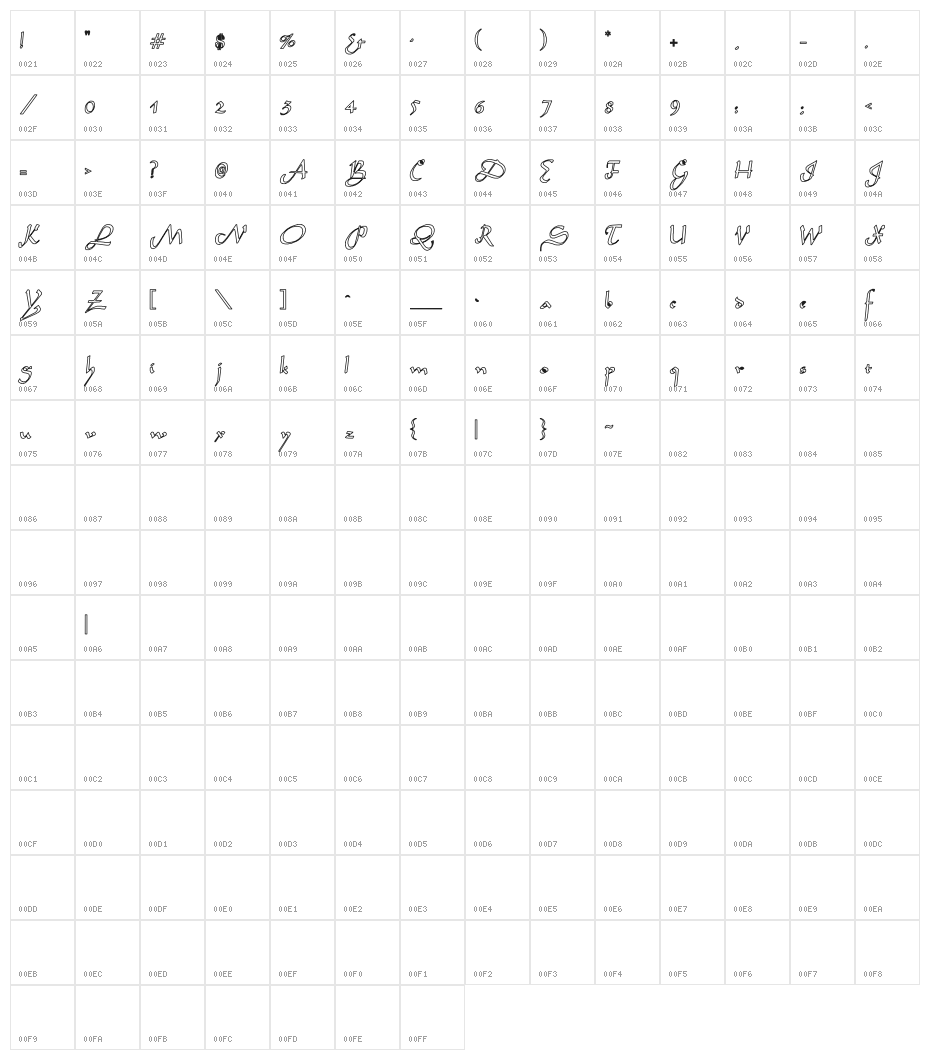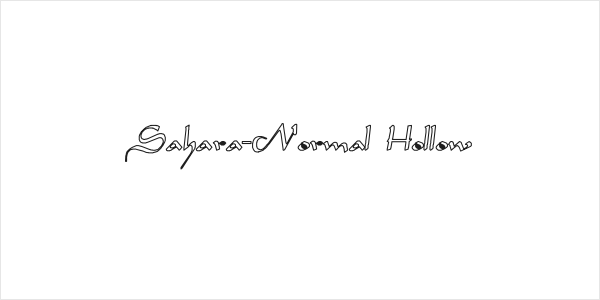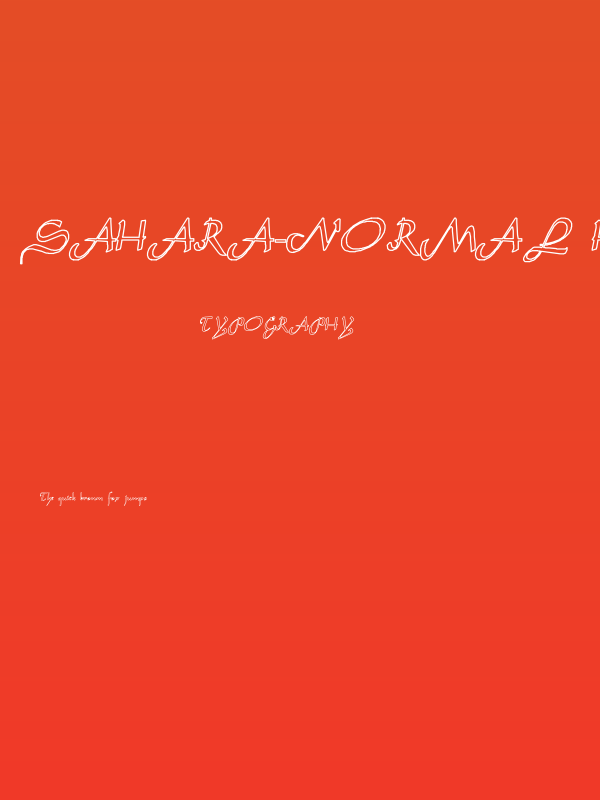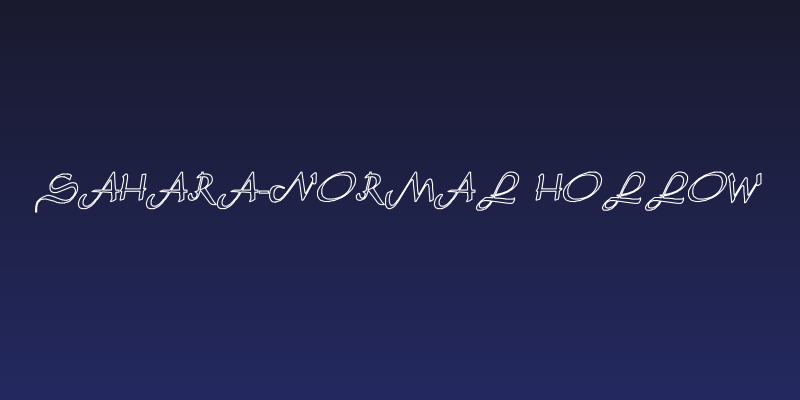
Sahara-Normal Hollow Font
Sahara-Normal Hollow Description
This font features a unique hollow design with an elegant, flowing script style. The uppercase letters exhibit a decorative flair with intricate loops and curves, while the lowercase letters maintain a consistent, smooth flow. The numbers and special characters are designed to complement the overall aesthetic, featuring similar hollow and decorative elements. This font stands out with its artistic and sophisticated appearance, making it suitable for creative and expressive design projects.